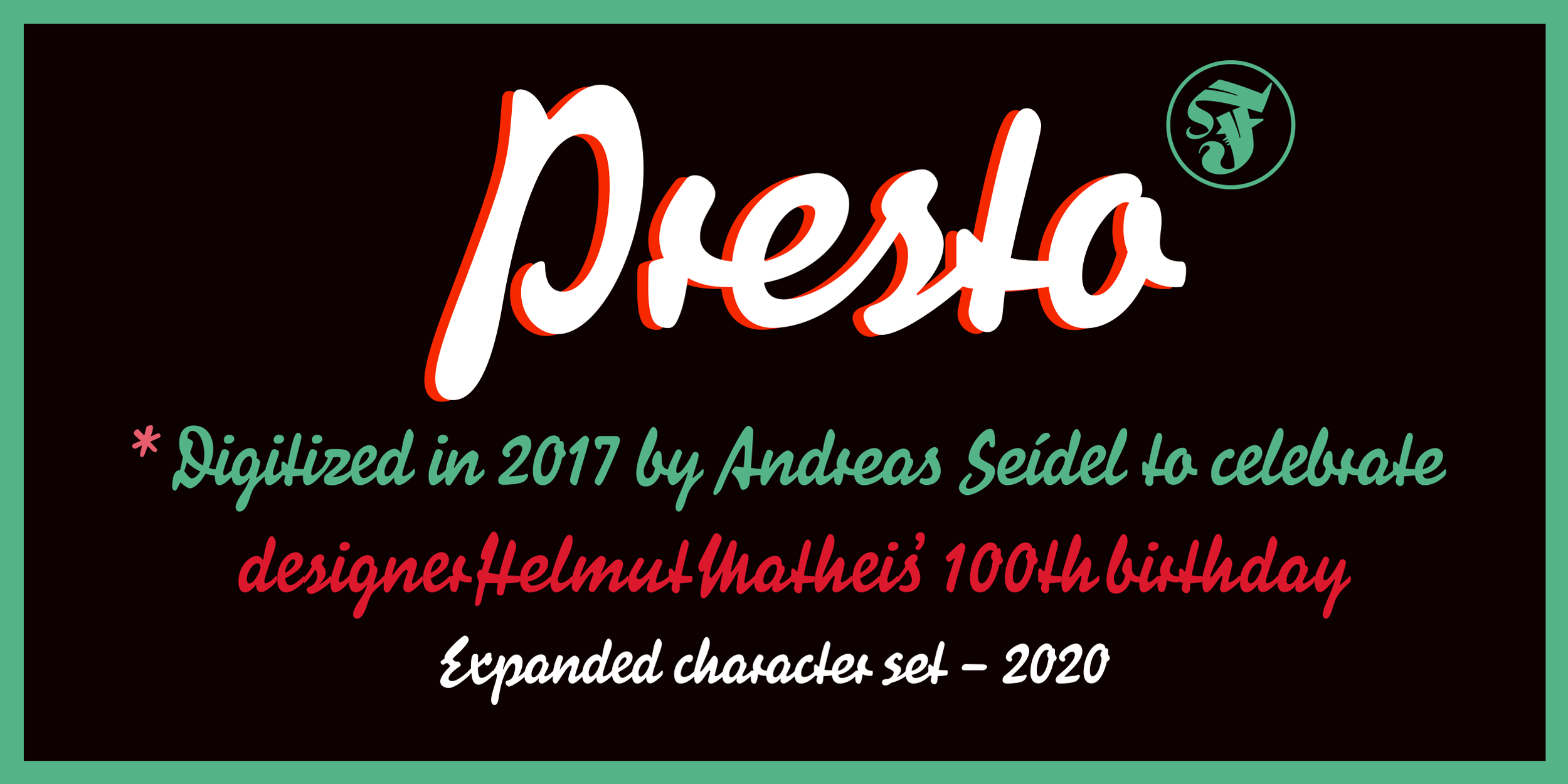
Designed by Andreas Seidel and Helmut Matheis, Presto is a brush script and script font published by Fust & Friends.
Presto first came out in 1970, as one of the last display fonts to be published in Germany as metal type. The digital version was published in 2017 in honour of its designer Helmut Matheis, who turned 100 in November 2017. Matheis, still active as a lettering artist and pianist, was delighted with our proposal and happy to give us his permission to offer this first digital version for free.
Andreas’ Seidel’s revival for Fust & Friends is a faithful rendition of the original (1970).
In 2019 he expanded the first Presto digitization into a more international, better equipped font: Presto International.